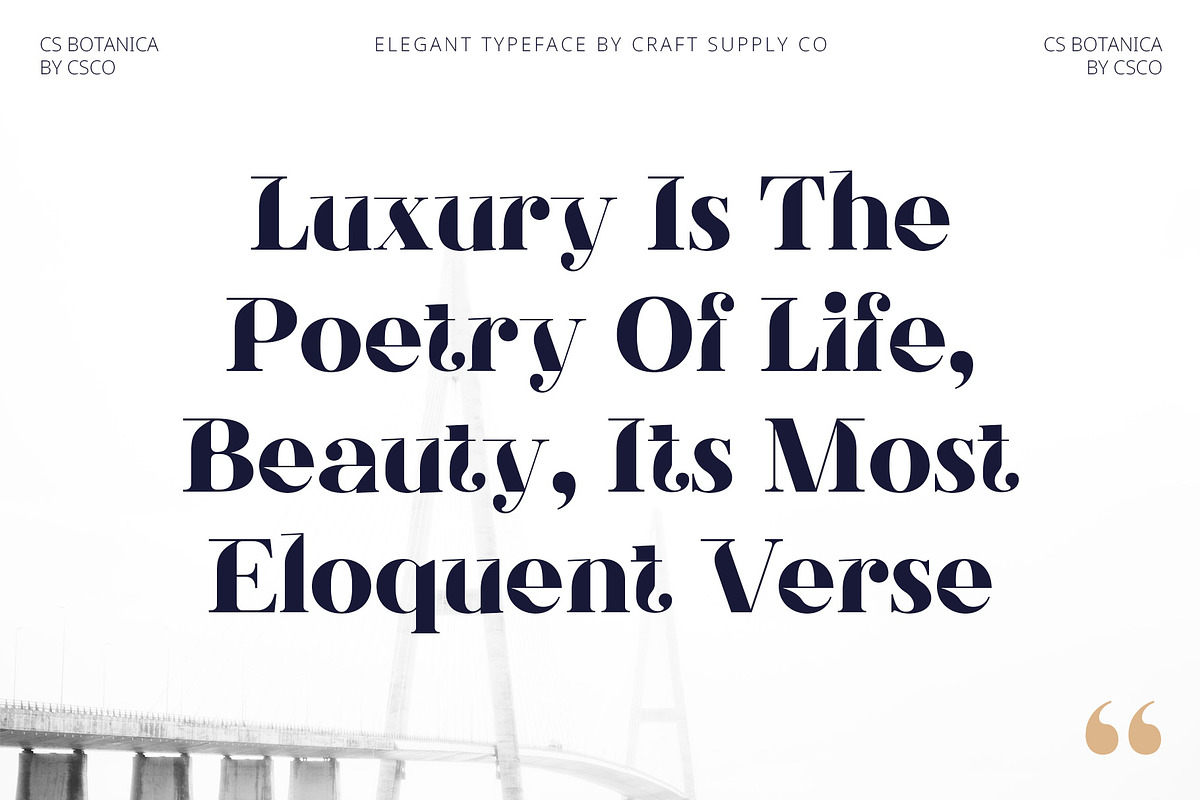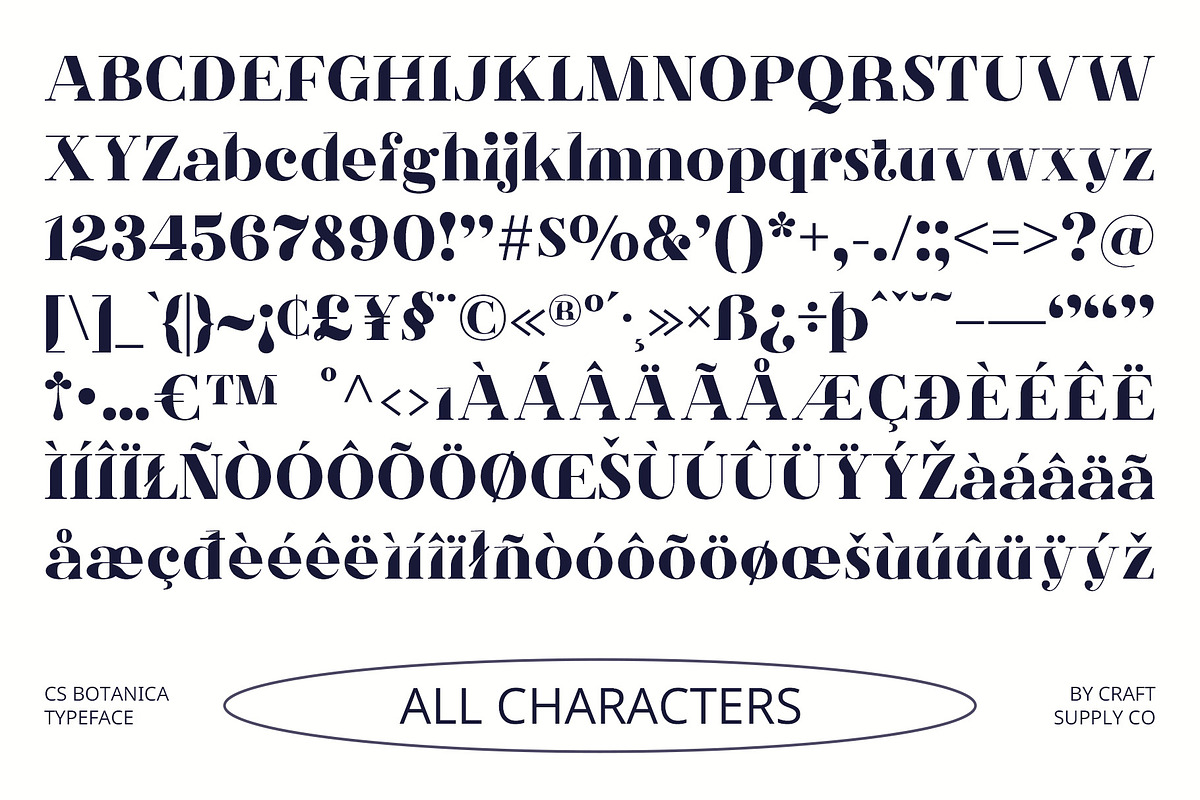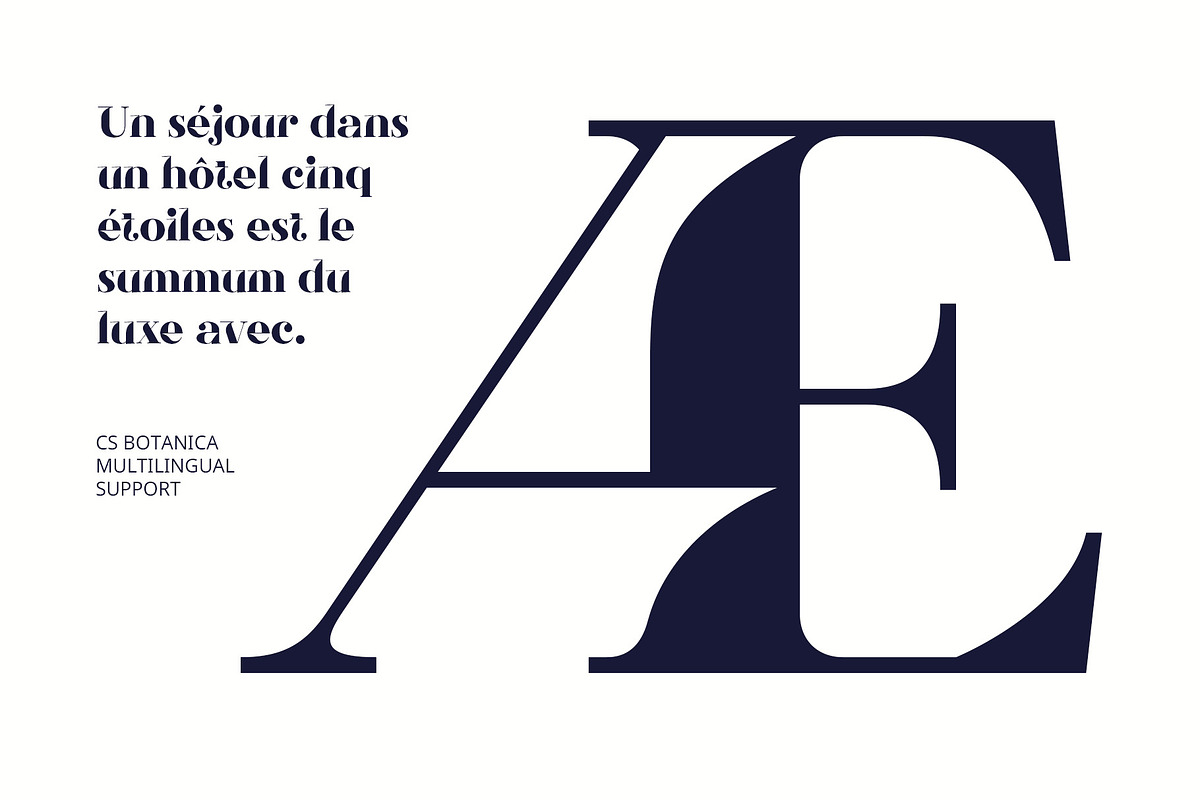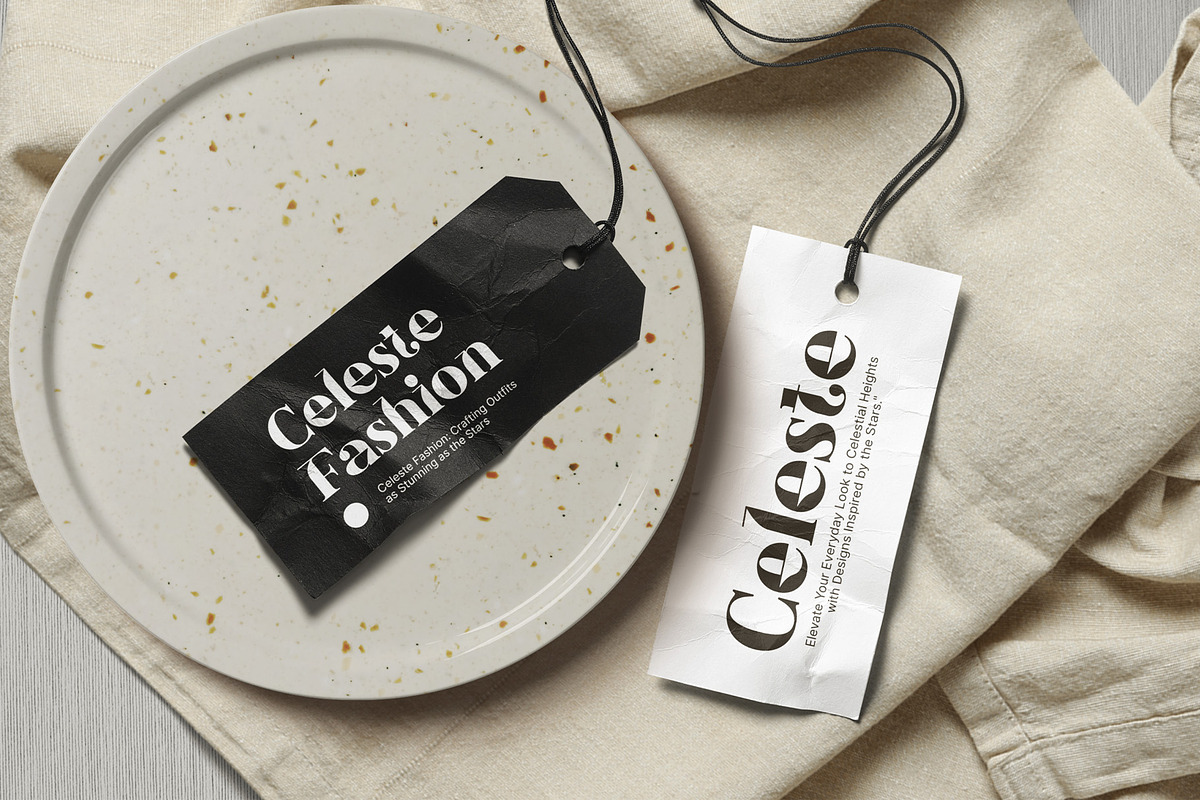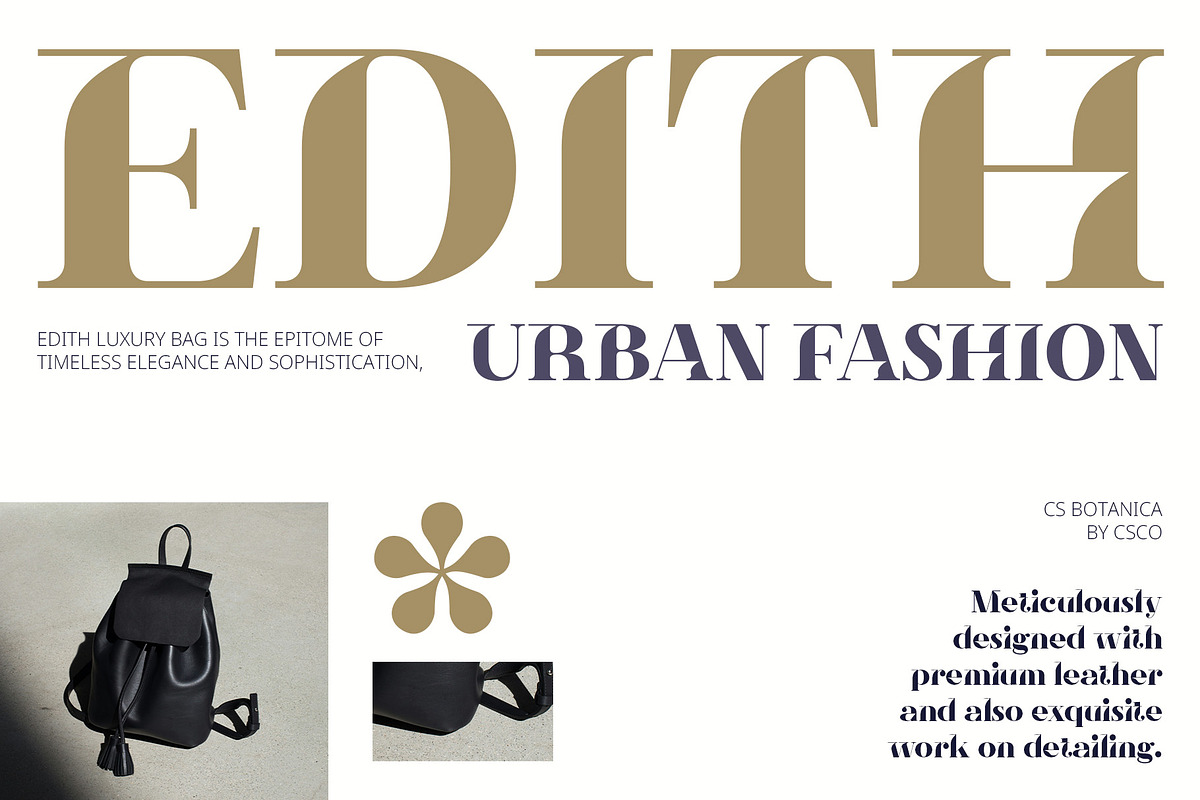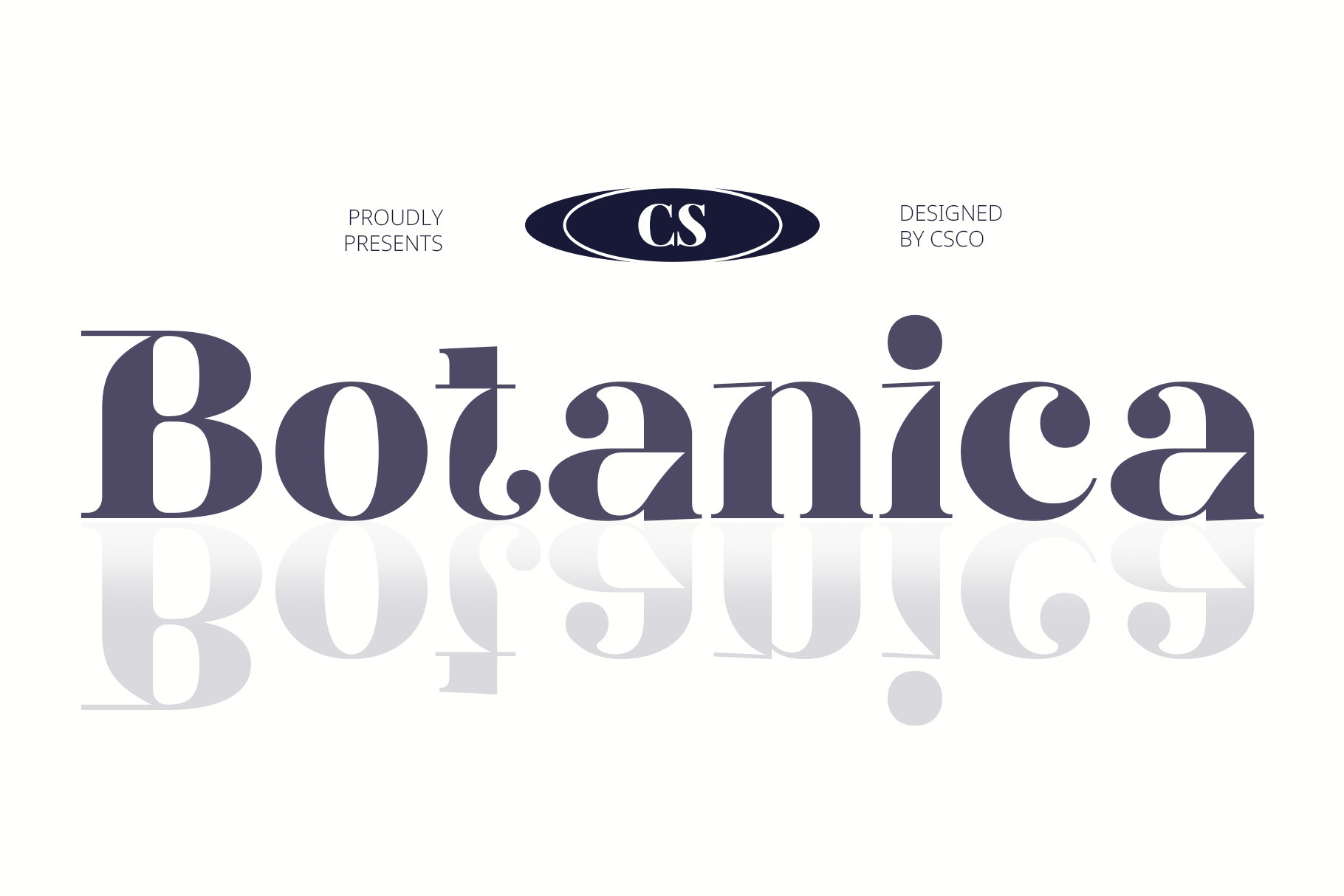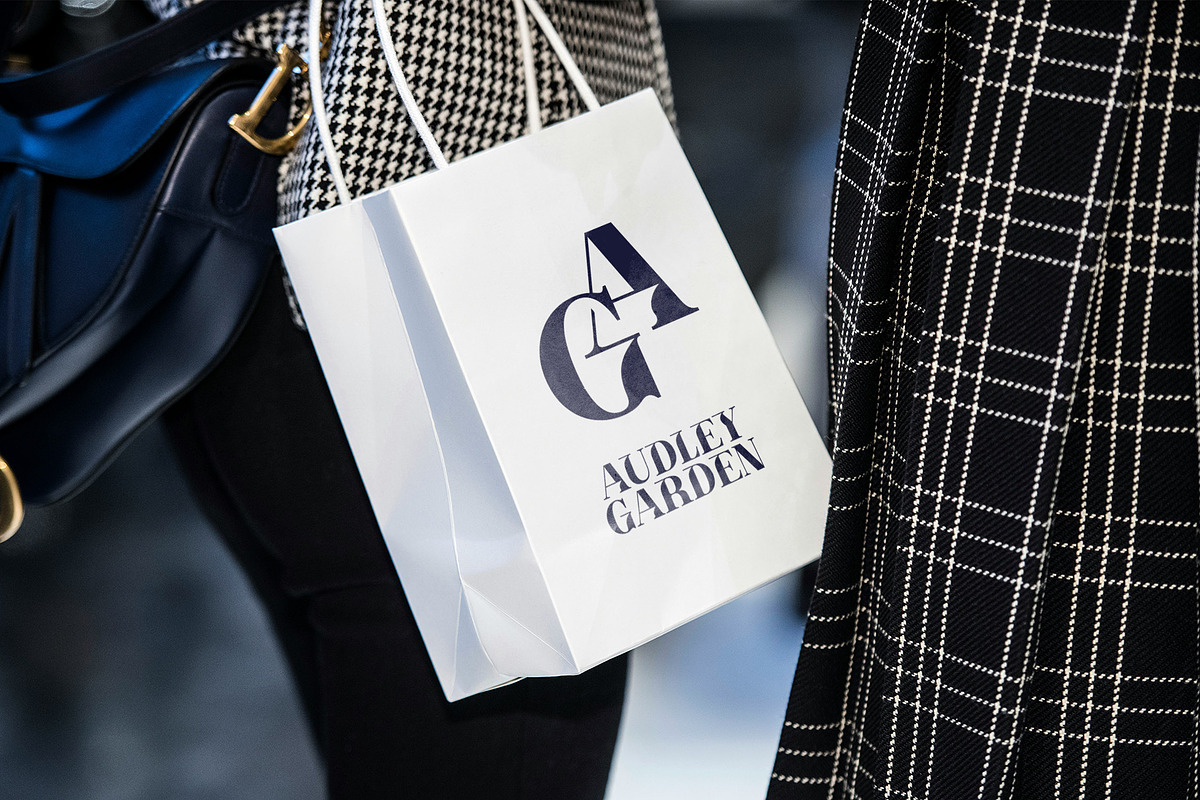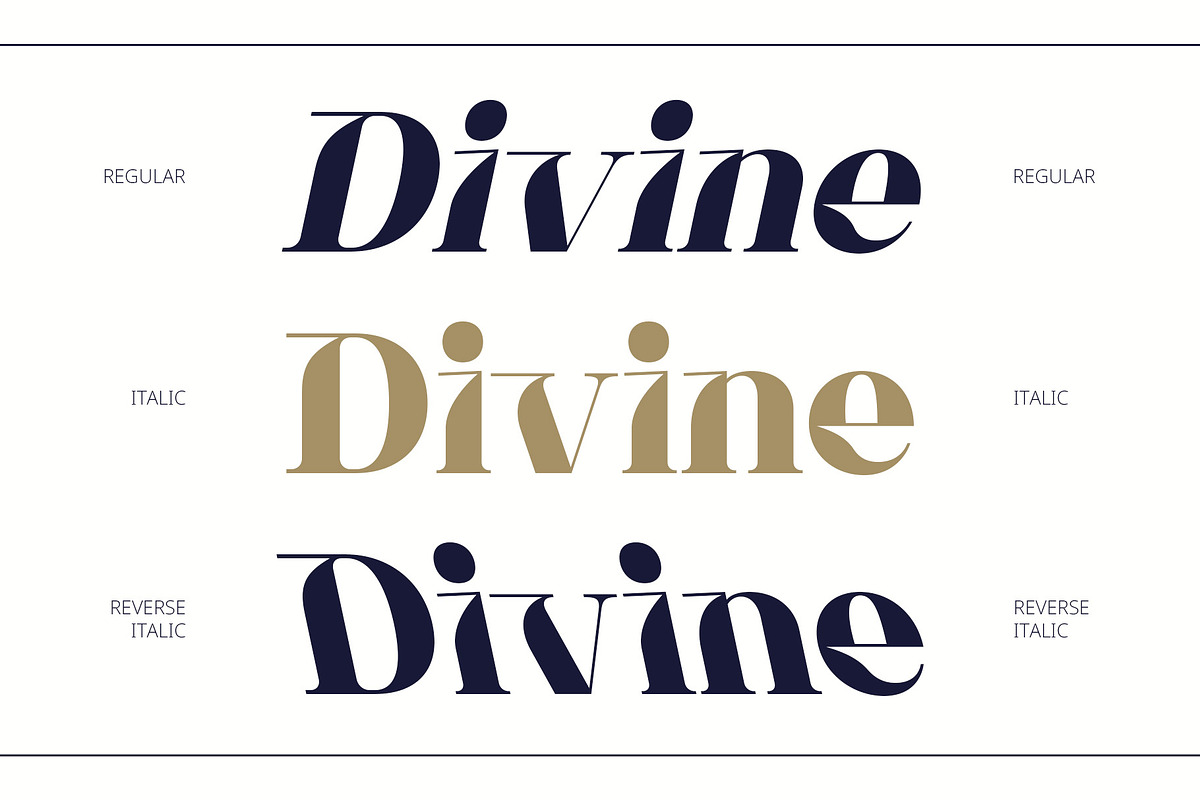
CS Botanica – Elegant Font
CS Botanica – Elegant Font: Timeless Opulence with Modern Flair
Modern Didone Serif with High Contrast CS Botanica – Elegant Font is a refined Didone serif typeface that embodies elegance and sophistication. Featuring high contrast between thick and thin strokes, this font delivers a striking visual impact, ideal for luxury designs that require both classic beauty and contemporary style.
Perfect for High-End and Luxury Designs With its sharp, clean lines and graceful curves, CS Botanica is the perfect choice for projects that seek to convey a sense of opulence and timelessness. Whether used in high-end branding, upscale packaging, or refined editorial layouts, this font adds a luxurious touch that enhances the overall aesthetic.
Elegant and Sophisticated Impression CS Botanica’s design is characterized by its high contrast and well-balanced proportions, creating a sense of elegance and sophistication. Its sleek, modern appearance combined with classic serif details makes it ideal for applications that demand a refined and polished look.
Versatile for Opulent and Timeless Projects CS Botanica excels in adding a touch of elegance to a variety of design applications. Its modern Didone style ensures versatility while maintaining a luxurious and timeless appeal, making it the ideal choice for projects that require a sophisticated and high-end appearance.